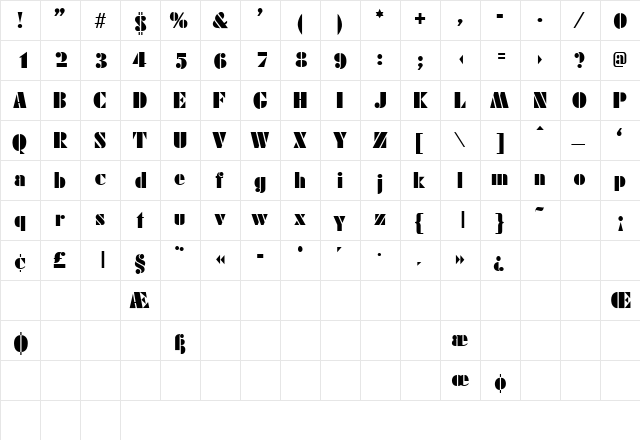
KudosPosterSSK Regular
Design Context for KudosPosterSSK Typeface
KudosPosterSSK is a composed and adaptable typeface that performs quietly and consistently across a wide range of design contexts.